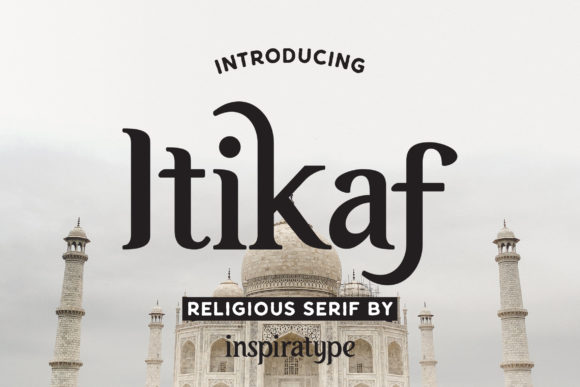
Itikaf Font
Immerse yourself in the realm of typography with Itikaf, a serif font family that exudes sophistication and charm. Inspired by the allure of classic posters, Itikaf is not just a font; it's an artistic journey that transforms your creative projects into masterpieces.
With its graceful curves and delicate serifs, Itikaf captures the essence of timeless elegance. Each letterform is meticulously crafted to evoke a sense of nostalgia, while maintaining a contemporary appeal. Whether you're designing wedding invitations, creating elegant branding materials, or crafting captivating social media posts, Itikaf will elevate your designs to new heights.
Step into a world where typography meets artistry, where words are transformed into visual poetry. Itikaf's versatility knows no bounds. It effortlessly adapts to a wide range of creative endeavors, from traditional print media to modern digital platforms. Its understated charm adds a touch of sophistication to minimalist designs, while its expressive character shines through in bold and vibrant compositions.
Unleash your creativity and let Itikaf guide you through a world of endless possibilities. Its carefully balanced letterforms ensure effortless readability, making it perfect for body copy, headlines, and everything in between. Experience the joy of seamless storytelling as Itikaf seamlessly blends into your designs, enhancing your message with a touch of timeless elegance.
Embrace the beauty of Itikaf and embark on a creative journey like no other. Let its classic charm and modern sensibility elevate your designs, capturing the attention of your audience and leaving a lasting impression. Discover the transformative power of typography with Itikaf, and unlock a world of creative possibilities.